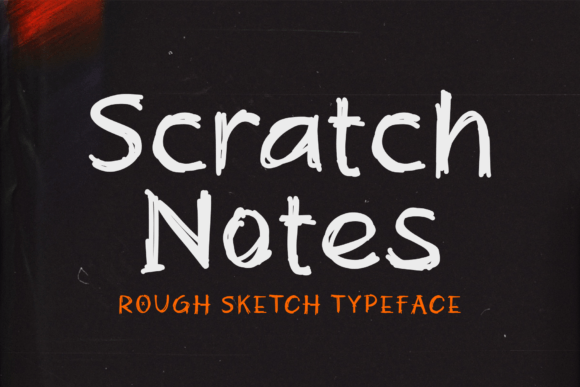
Scratch Note: A Handcrafted Display Font That Brings Artistry to Your Design
In the world of typography, fonts play a crucial role in shaping the visual identity of any project. Whether it's for branding, publishing, or digital content, the right font can elevate a design from ordinary to extraordinary. One such font that has been making waves among designers and creatives is Scratch Note. This display font is not just another typeface; it’s a unique blend of authenticity, artistry, and charm that sets it apart in the crowded typographic landscape.
What Is Scratch Note?
Scratch Note is a hand-drawn display font created through an artisanal process. Unlike mass-produced fonts that often feel sterile and uniform, Scratch Note was built by emulating authentic handwriting, drawing inspiration from sketches and natural imperfections. The result is a font that feels personal, warm, and full of character — as if it were written by someone with a passion for creativity and expression.
This font is ideal for projects where you want to add a human touch. It works especially well for logo design, watermarks, and headline text in magazines, websites, and promotional materials. Its organic nature makes it stand out while still being versatile enough to fit into modern design contexts.
The Beauty of Imperfection
At first glance, Scratch Note may appear irregular or even slightly chaotic due to its natural variations in stroke weight and spacing. But this is precisely what gives it its charm. In a digital age where everything is often perfectly aligned and symmetrical, imperfection becomes a powerful aesthetic choice.
Imperfect fonts like Scratch Note reflect the authenticity of human creation. They remind us that beauty doesn't always come from perfection but rather from personality and uniqueness. This makes them incredibly engaging and relatable, especially in branding or storytelling where emotional connection is key.
Purpose and Significance of Scratch Note
The primary purpose of Scratch Note is to offer a visually appealing alternative to traditional display fonts. While many fonts aim for precision and consistency, Scratch Note embraces the raw, unfiltered style of handwritten notes and artistic sketches. This makes it particularly valuable in creative industries where originality is prized.
Why Choose Scratch Note?
Who Benefits Most from Using Scratch Note?
Scratch Note is a favorite among designers working on branding projects, artists looking to integrate text into their work, and publishers who want to add warmth to their editorial layouts. Its appeal also extends to businesses aiming to convey a sense of craftsmanship or individuality in their marketing materials.
How Scratch Note Fits Into Modern Life and Work
Today, more than ever, people are drawn to things that feel handmade and authentic. This trend isn’t limited to crafts or home décor — it extends into digital design as well. Fonts like Scratch Note cater to this growing desire for human-centric aesthetics.
Logo Design and Brand Identity
Logos are the face of a brand, and they need to communicate values quickly and effectively. Scratch Note is excellent for creating logos that evoke creativity, approachability, and a personal connection. For example, a small coffee shop might use it in their logo to suggest a cozy, artisanal atmosphere. Similarly, a creative agency could leverage its informal yet professional look to showcase a team of passionate individuals.
Magazine Headlines and Editorial Use
In magazine design, headlines are more than just informative — they set the tone for the entire piece. Scratch Note adds a dynamic flair to editorial layouts without overwhelming the reader. It works particularly well in lifestyle, fashion, or art-focused publications where a unique visual style enhances the storytelling experience.
Watermarks and Signature Elements
For watermarks or signature elements in artwork, photography, or video editing, Scratch Note provides a subtle yet expressive presence. Its irregular strokes make it less intrusive than a bold sans-serif font while still maintaining visibility and style.
Scratch Note in Business and Creativity
Businesses today understand the importance of standing out in a competitive market. Typography plays a big role in this differentiation. Scratch Note offers a way to inject personality into marketing materials, social media posts, and product packaging.
Marketing and Advertising
When used in advertising, Scratch Note can help brands connect with audiences on a more emotional level. Think of how a greeting card company or a boutique uses the font to highlight the care and attention put into each product. These visual cues subtly reinforce the brand’s message of quality and individuality.